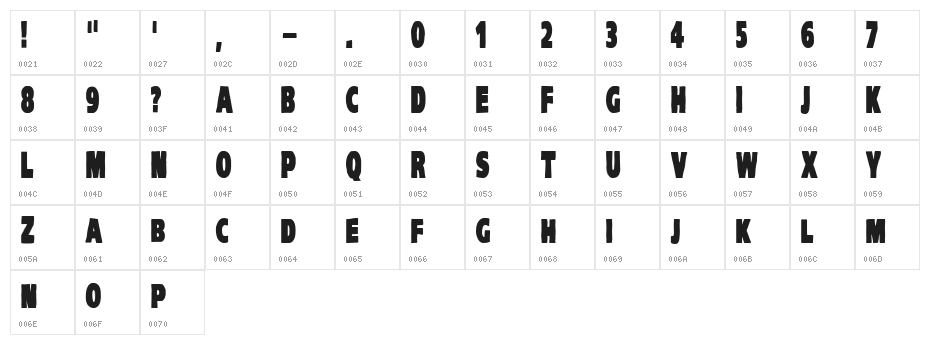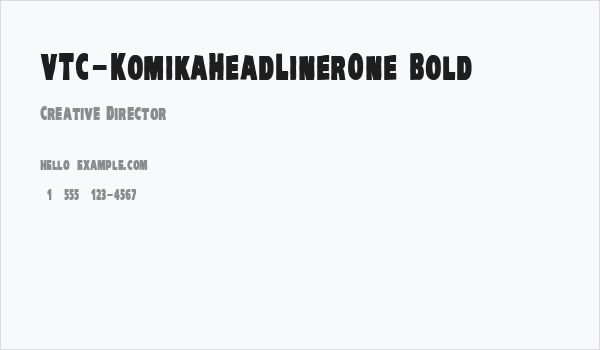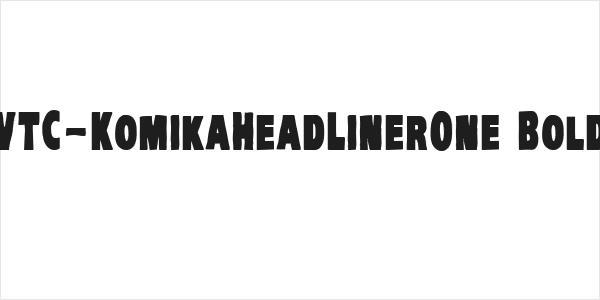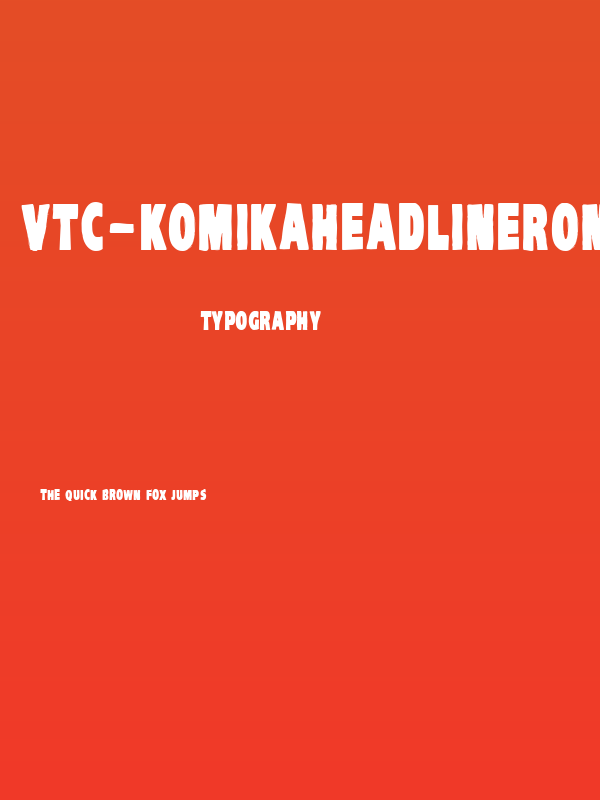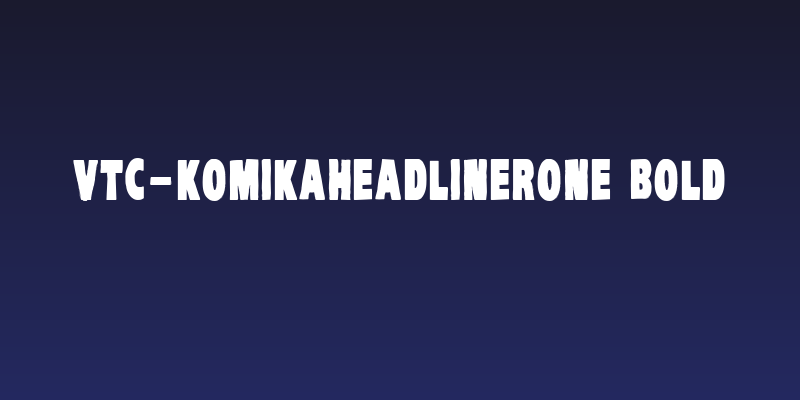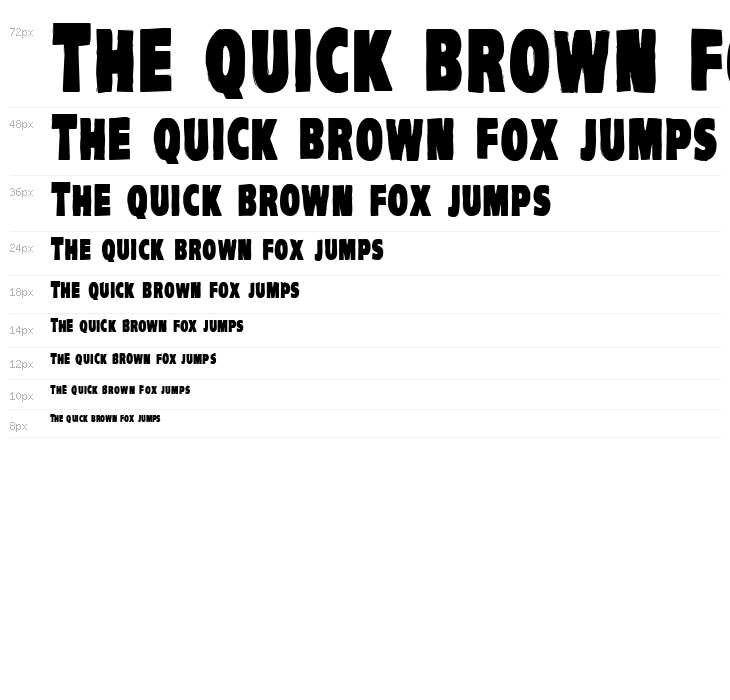
VTC-KomikaHeadLinerOne Bold Font
VTC-KomikaHeadLinerOne Bold Description
This bold, impactful font features thick, blocky letters with a slightly irregular, hand-drawn appearance. The uppercase letters are prominent and commanding, making it ideal for attention-grabbing headlines or titles. The numbers are equally bold, maintaining the strong presence of the alphabet. The font's style is playful yet assertive, with a touch of comic flair that adds character and uniqueness. The special characters are consistent with the overall design, ensuring a cohesive look across all text elements. This font is perfect for projects that require a bold statement and a touch of personality.
| Overall Style | Playful, Comic |
| Use Case | Headlines, Posters, Comic Books |
| Proposed Projects | Ideal for comic books, posters, headlines, and any design needing a bold, playful touch. |